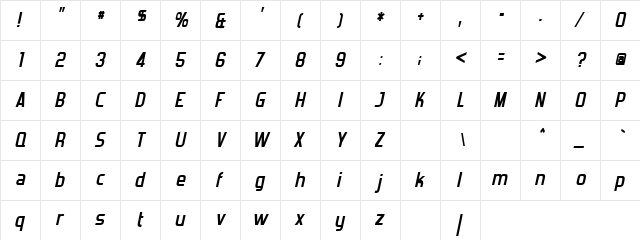
Gateway Adrin Regular
Design Context for Gateway Adrin Typeface
Gateway Adrin is a composed and adaptable typeface that performs quietly and consistently across a wide range of design contexts.
Pro Tip: Use Gateway Adrin in both headline and body roles to test its range before committing to a single application.